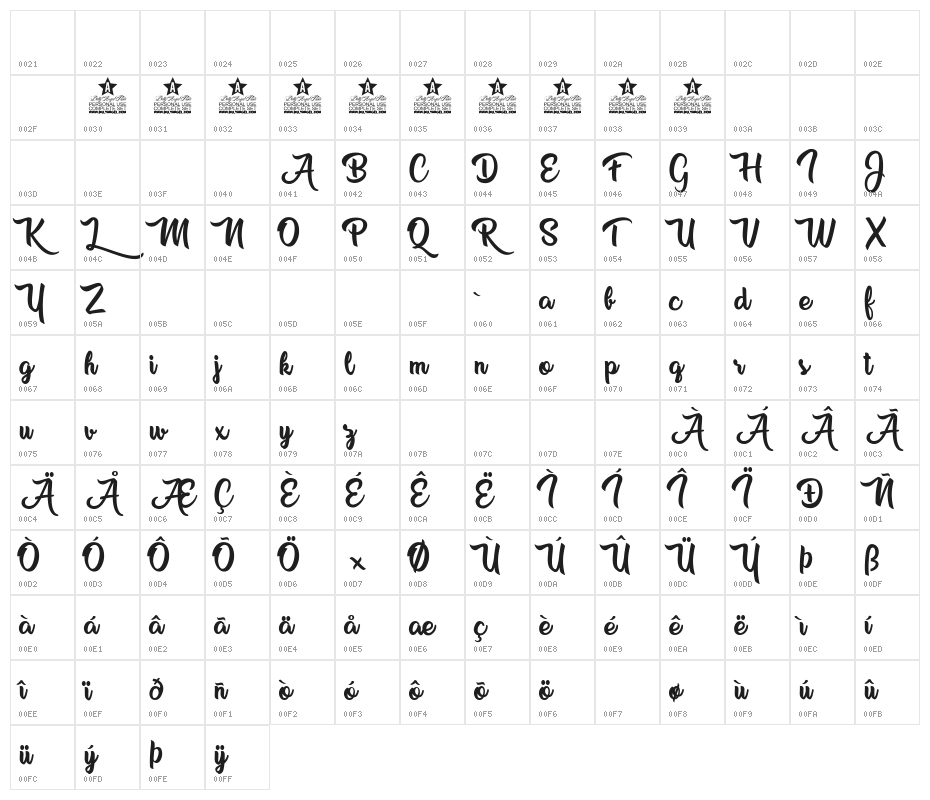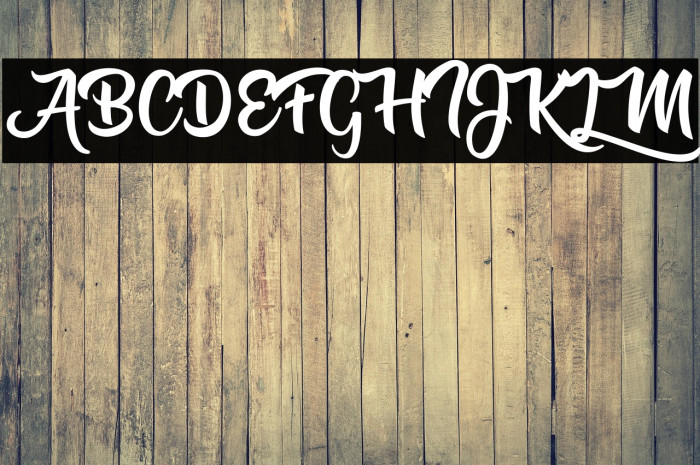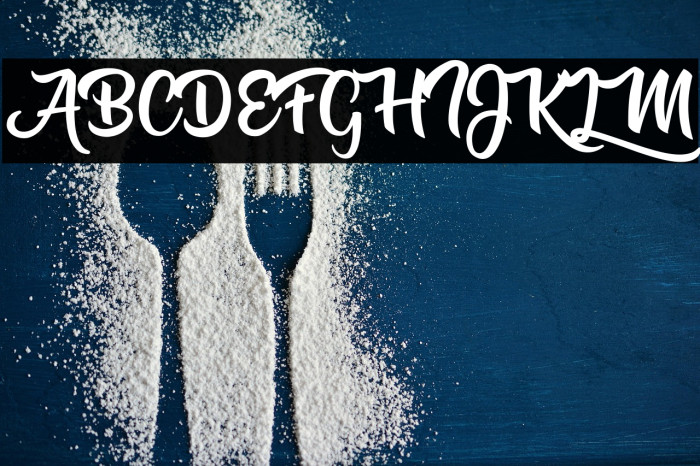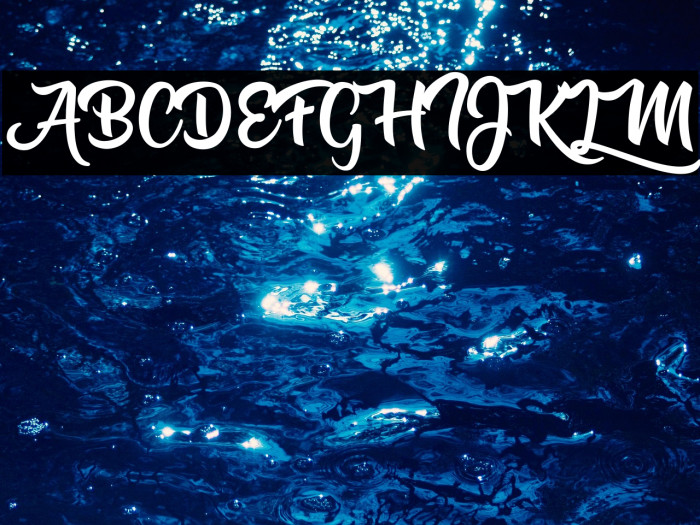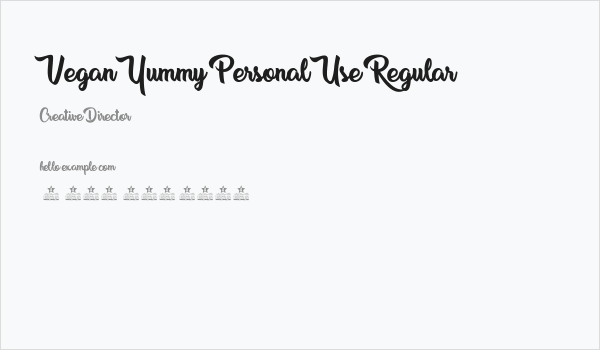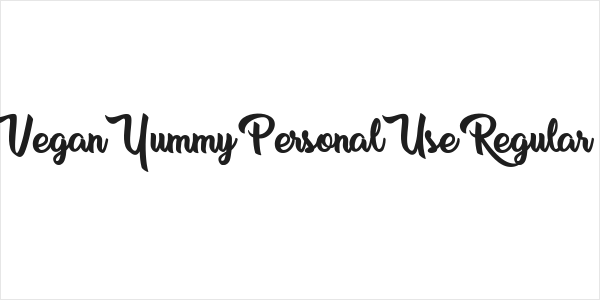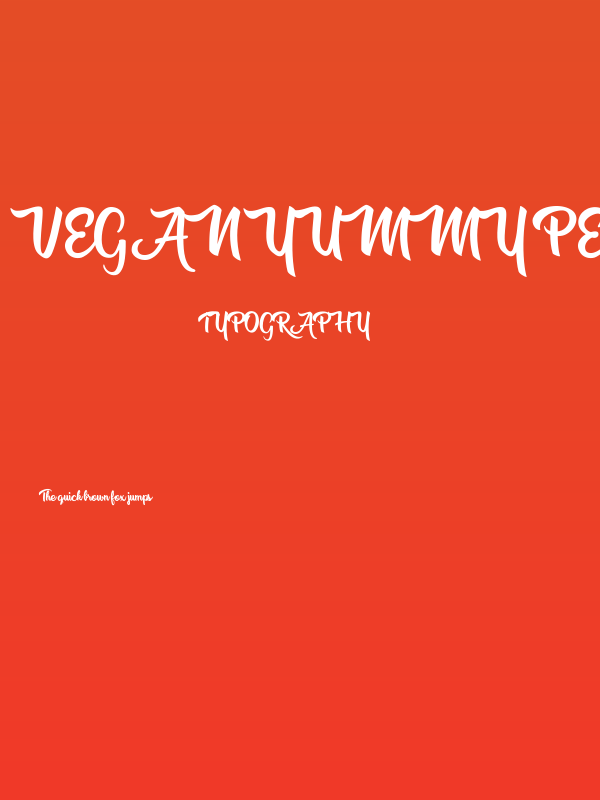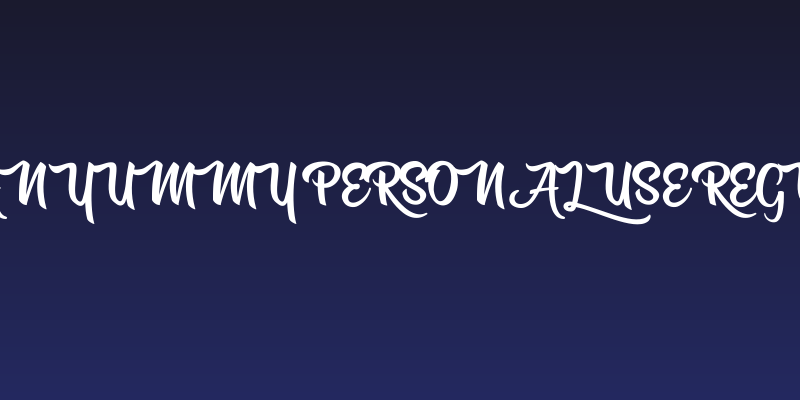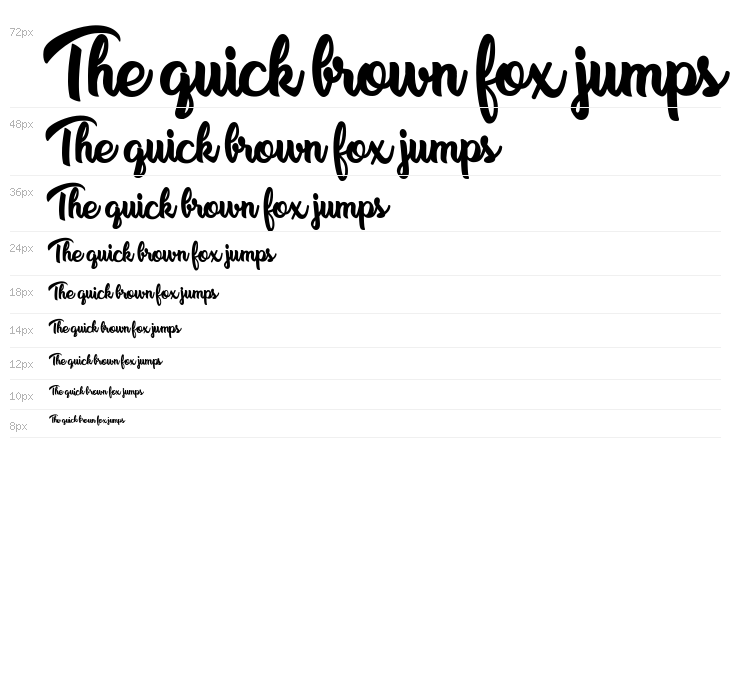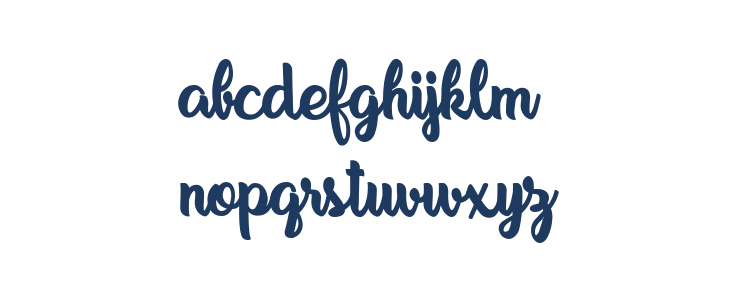
Vegan Yummy Personal Use Regular Font
Vegan Yummy Personal Use Regular Description
This font features a bold and playful script style, characterized by its flowing and connected letterforms. The uppercase letters exhibit a dynamic and energetic flair, with exaggerated curves and loops that give a sense of movement. The lowercase letters maintain a cohesive and harmonious look, complementing the uppercase with their rounded and smooth lines. The font's overall appearance is lively and expressive, making it suitable for creative and informal designs. The special characters are designed to match the playful aesthetic, adding versatility to the font's use.